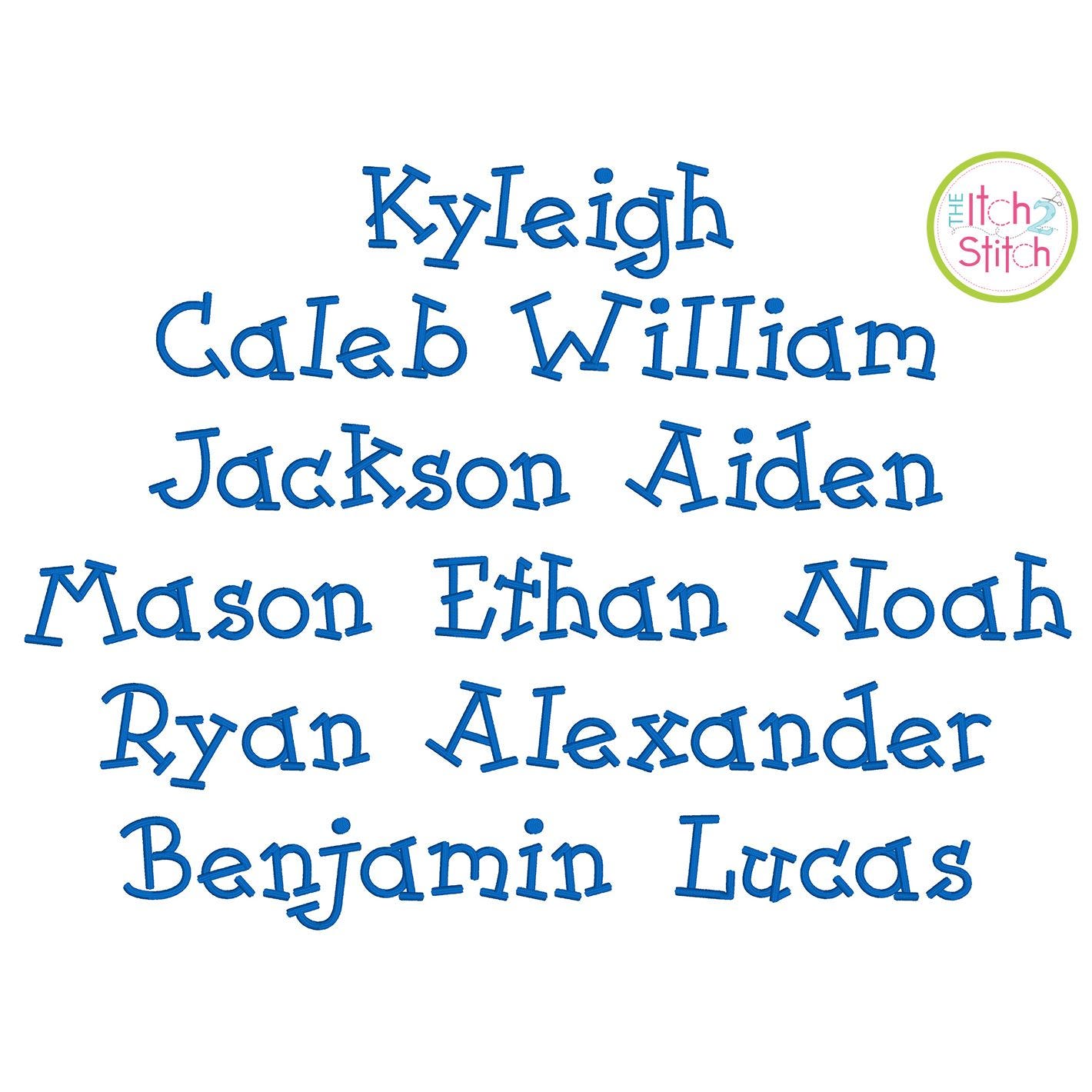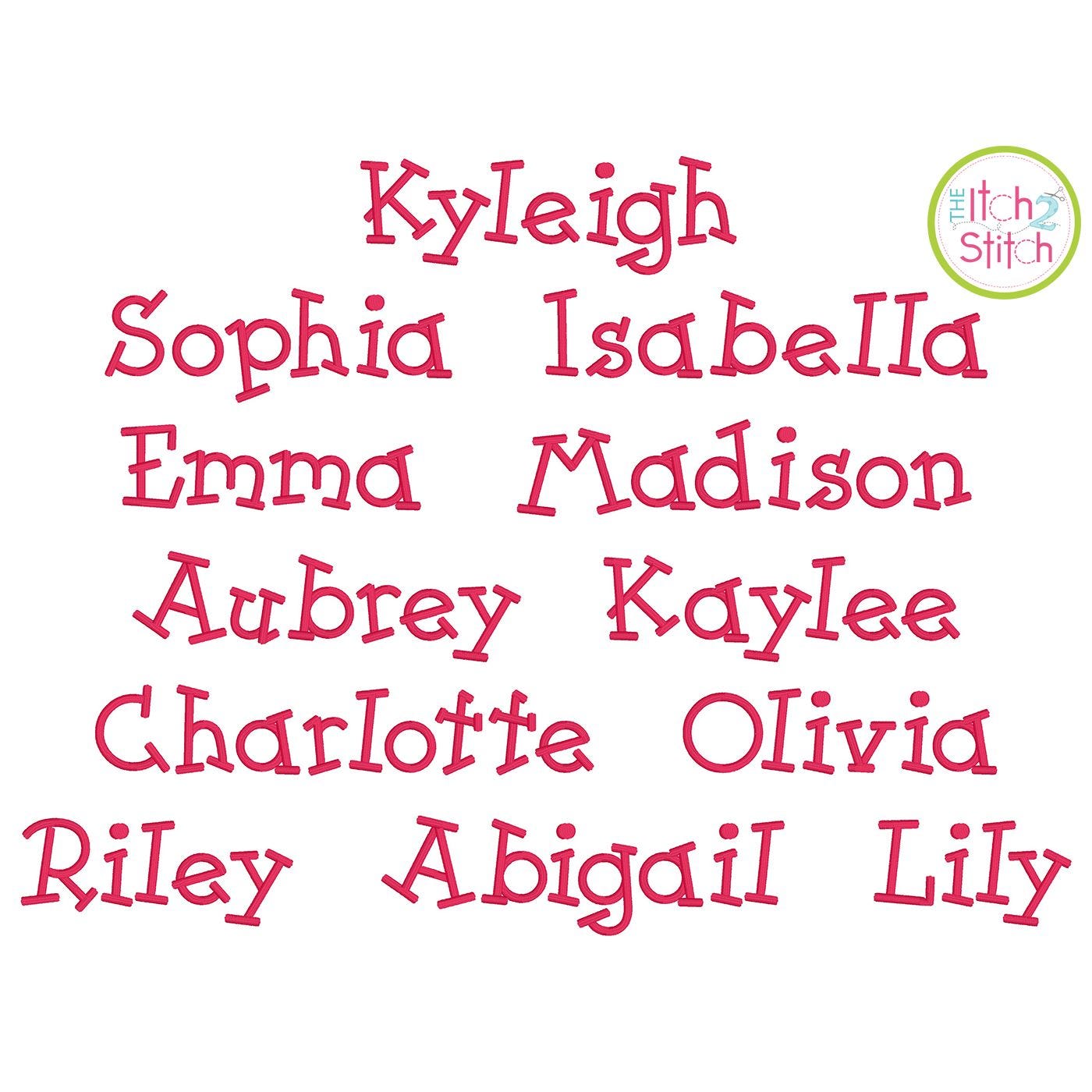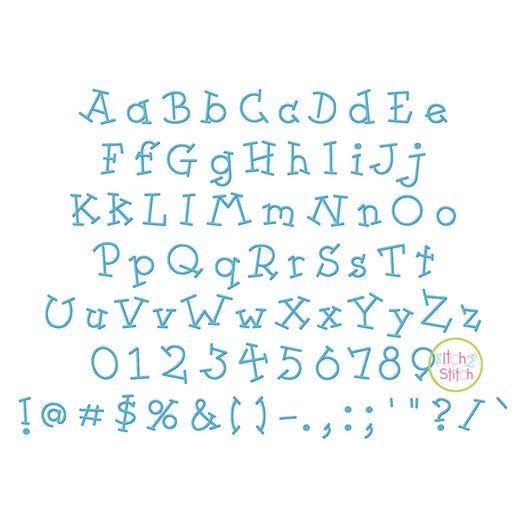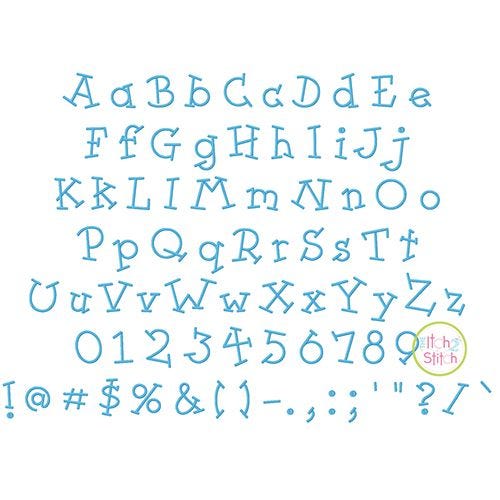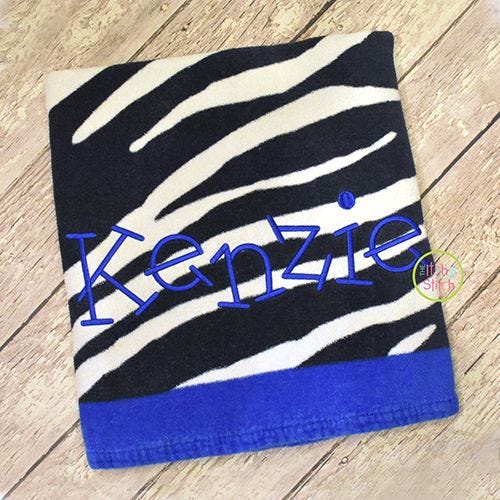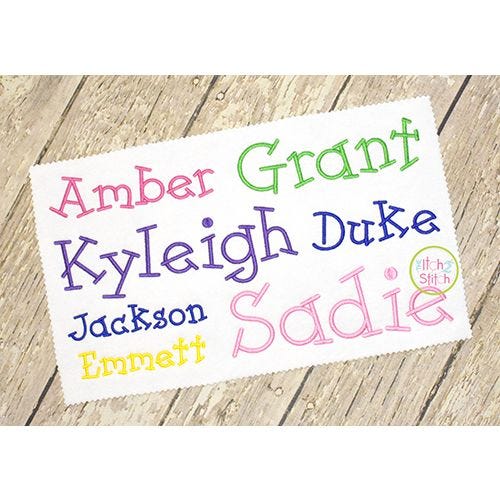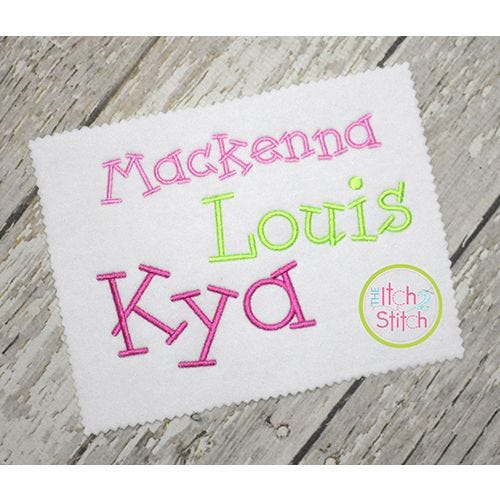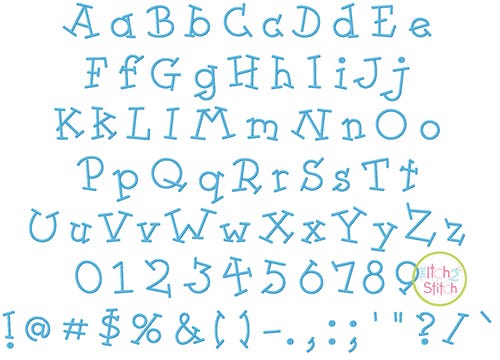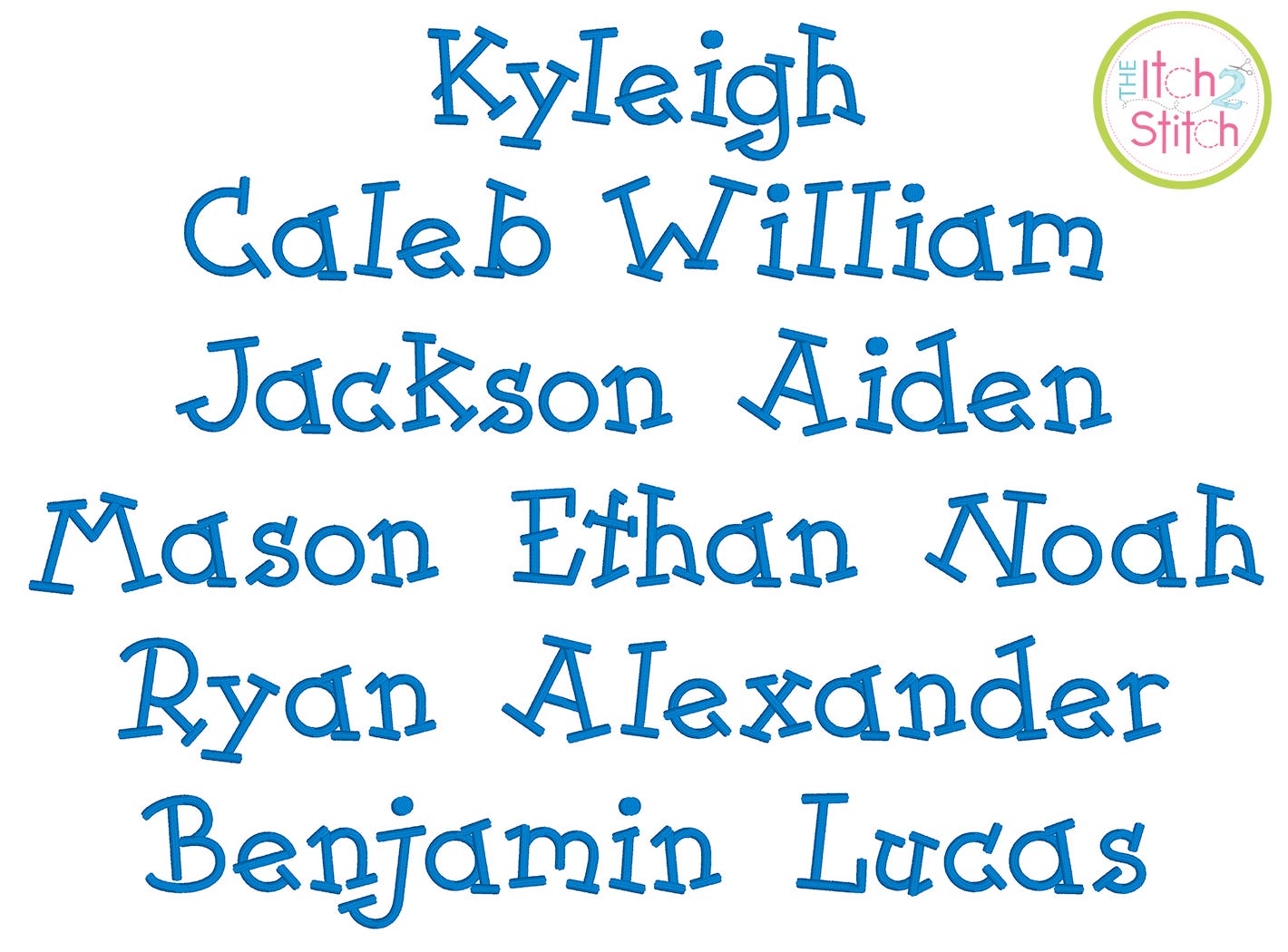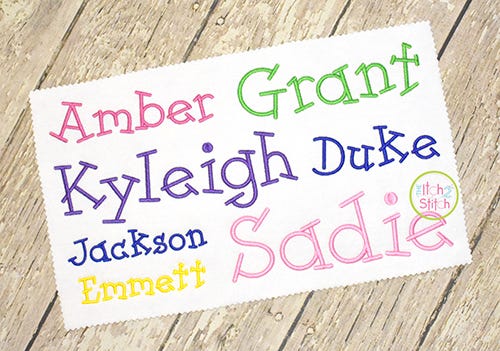
Kyleigh Satin Stitch Embroidery Font
All sizes are completely satin stitch with the exception of the dots on the 2" and larger sizes, which are split satin stitch.